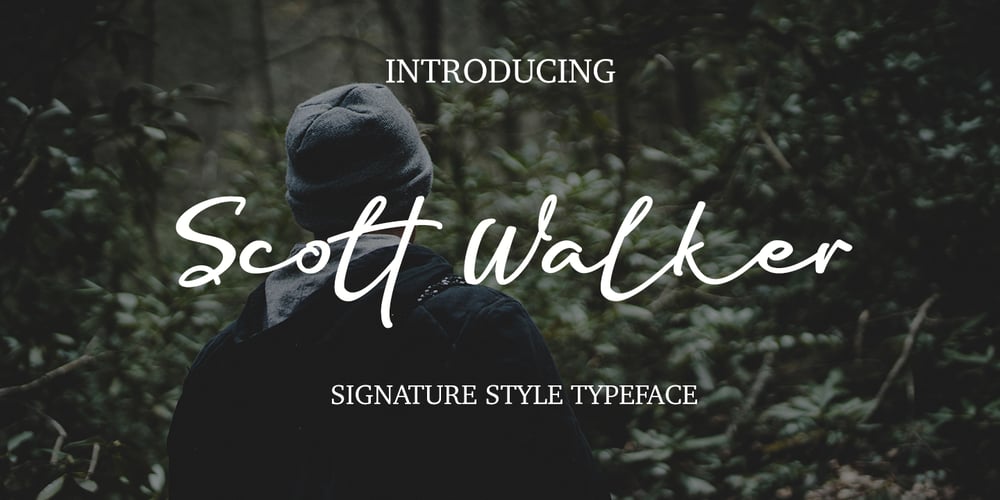
Scott Walker
Scott Walker font
Scott Walker Font Family was designed by Hajid Hikmatiyar and published by Hikhcreative. Scott Walker contains 1 styles and family package options. Scott Walker is ideal for creating logos and watermarks for photography, as well as weddings, invitations, personal and corporate branding. I made it with a sense of elegant, professional, and very catchy. Scott Walker works both on Mac & PC. Simple installations, Alternates & Ligature and Multi-lingual Support. Accessible in the Adobe Illustrator, Adobe Photoshop, Adobe InDesign, CorelDraw. This type requires the support of OTF font such as AI, Photoshop, Affinity, Corel and so on. If you have questions about the latest fonts, please provide a short message to us Thank You HikhStudio